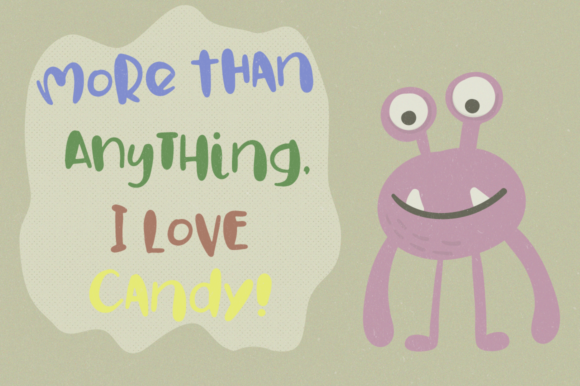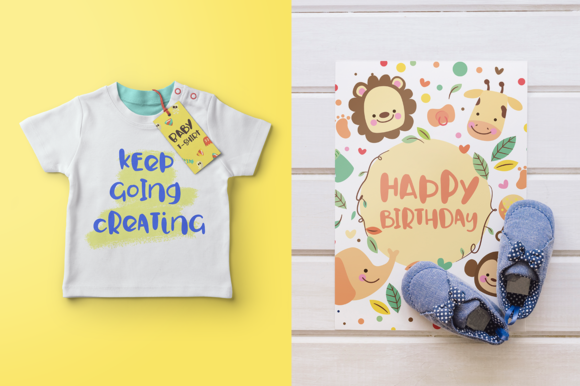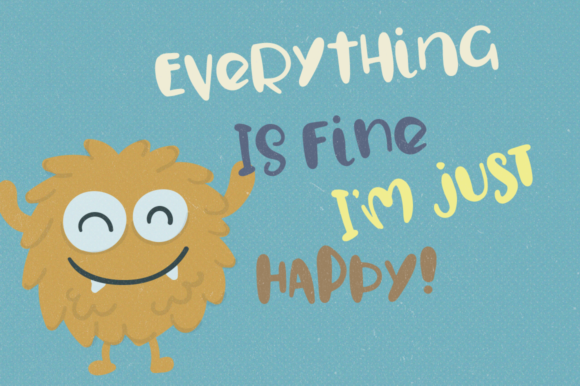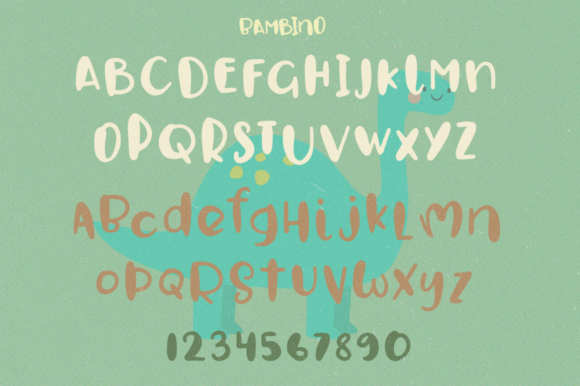
Bambino Font: A Fun and Fresh Handmade Font for Your Creative Projects
The Bambino font is a delightful, handmade font that is perfect for adding a touch of personality to your branding and craft projects. With its fun and fresh design, this font is sure to capture the attention of your audience and make your work stand out.
What is the Bambino Font?
The Bambino font is a unique, hand-crafted font that is designed to bring a sense of playfulness and creativity to your projects. Its handmade aesthetic gives it a charming, one-of-a-kind feel that is perfect for crafters, designers, and DIY enthusiasts.
Key Features of the Bambino Font
- Handmade design: The Bambino font is carefully crafted by hand to give it a unique, organic feel.
- Fun and fresh style: This font is perfect for adding a touch of whimsy and personality to your projects.
- Perfect for branding and decorating: The Bambino font is ideal for use in logos, titles, headings, and other design elements.
- Easy to read: Despite its playful design, the Bambino font is clear and easy to read, making it perfect for use in a variety of applications.
Uses for the Bambino Font
The Bambino font is versatile and can be used in a variety of creative projects, including:
- Branding and logos: Use the Bambino font to create a unique and memorable logo for your business or brand.
- Crafting and DIY projects: Add a personal touch to your craft projects, such as handmade cards, gift tags, and scrapbooking pages.
- Signs and posters: Use the Bambino font to create eye-catching signs and posters for events, promotions, and announcements.
- Digital design: The Bambino font can be used in digital design projects, such as social media graphics, blog posts, and website headers.
Tips for Using the Bambino Font
Here are a few tips for getting the most out of the Bambino font:
- Use it sparingly: The Bambino font is best used in moderation, as its playful design can be overwhelming if overused.
- Pair it with other fonts: Combine the Bambino font with other fonts to create a unique and visually appealing design.
- Experiment with colors and textures: Add depth and interest to your design by experimenting with different colors and textures.
Why Choose the Bambino Font?
If you’re looking for a font that will add a touch of personality and whimsy to your projects, the Bambino font is an excellent choice. Its handmade design and fun, fresh style make it perfect for crafters, designers, and DIY enthusiasts who want to create unique and eye-catching designs.
The Bambino font is a versatile and charming font that is perfect for adding a touch of personality to your creative projects. With its handmade design, fun and fresh style, and ease of use, it’s an excellent choice for designers, crafters, and DIY enthusiasts. So why not give it a try and see how it can enhance your next project?